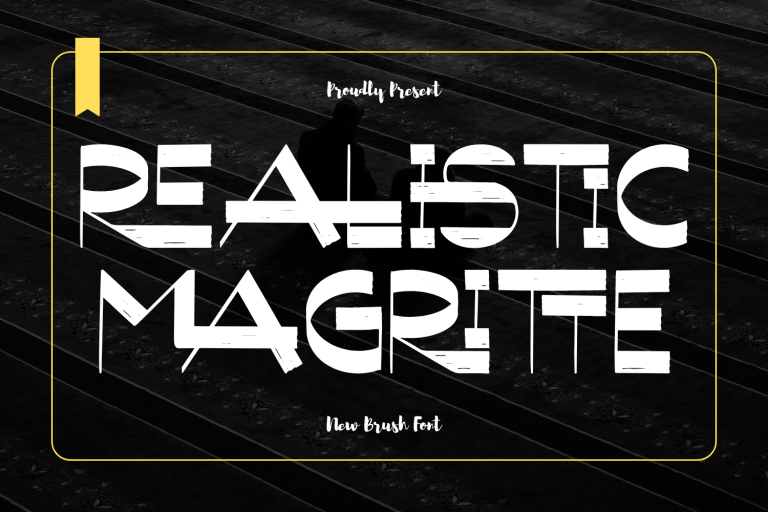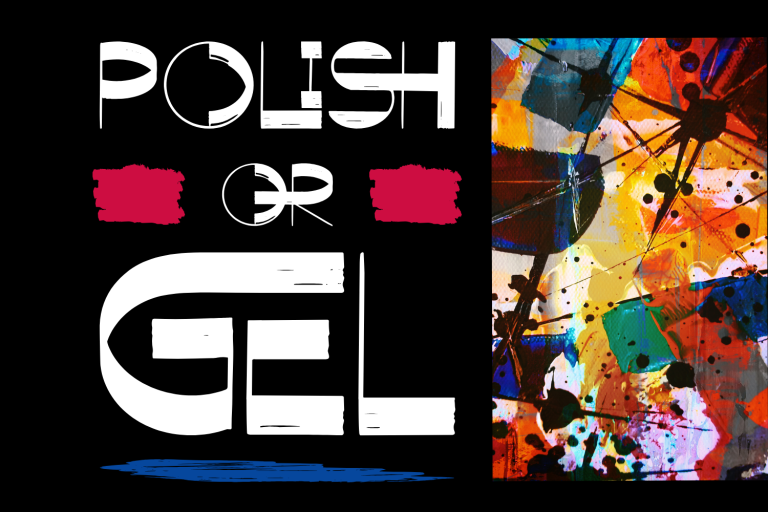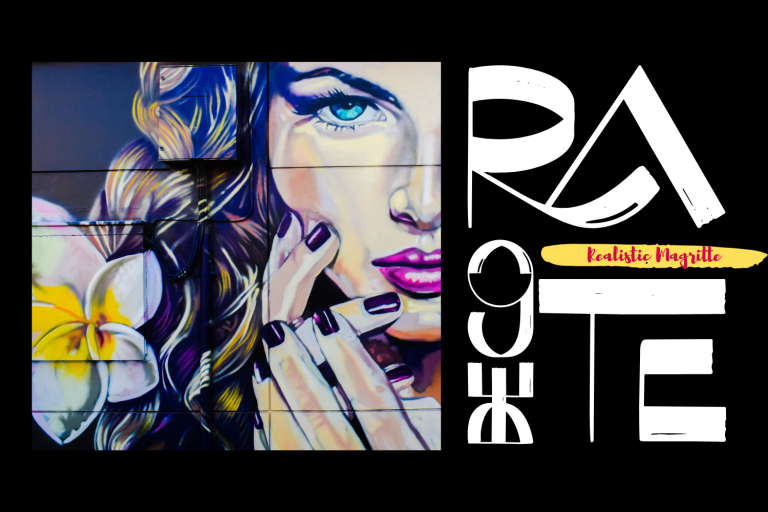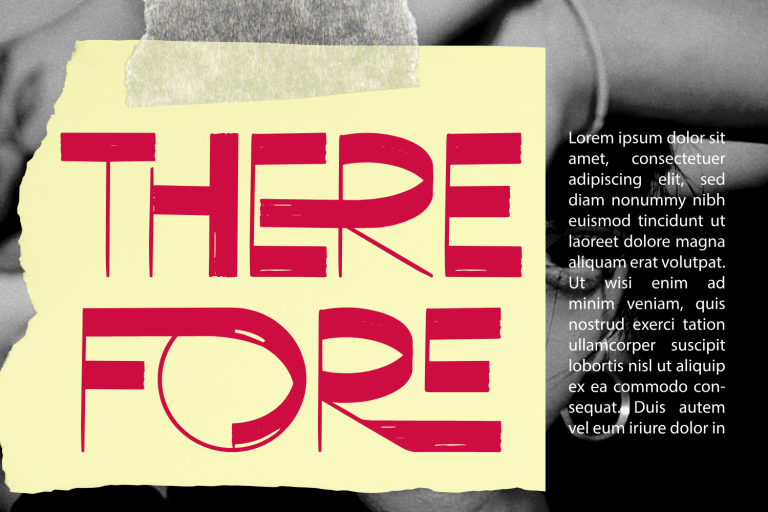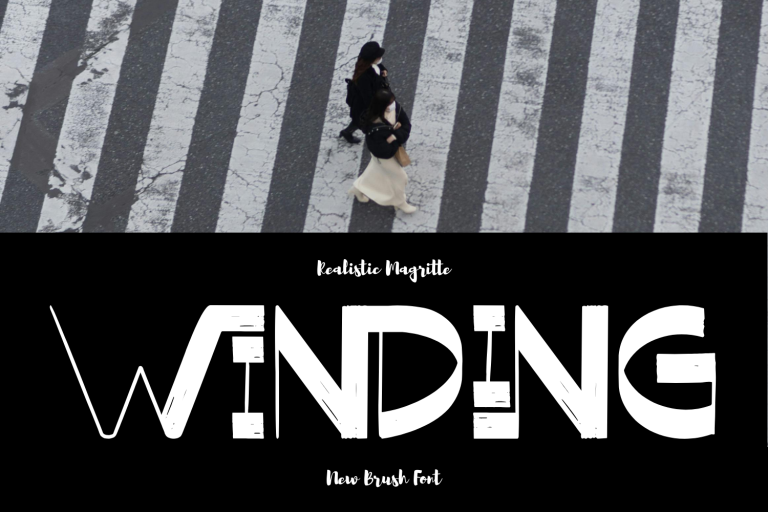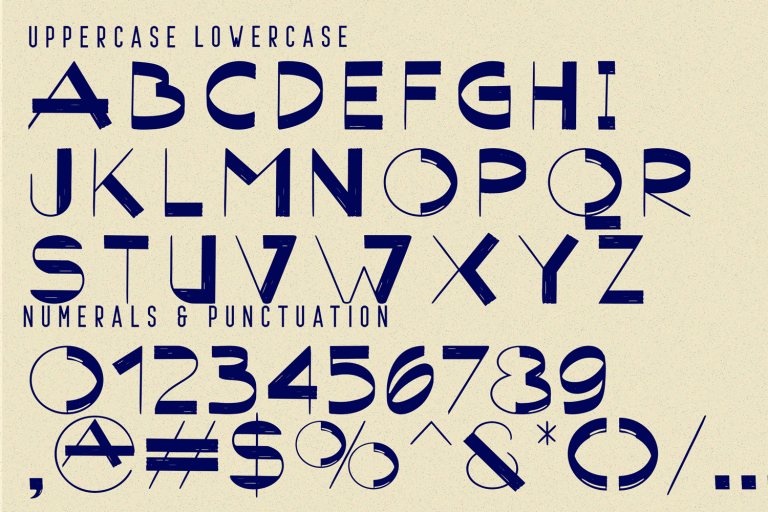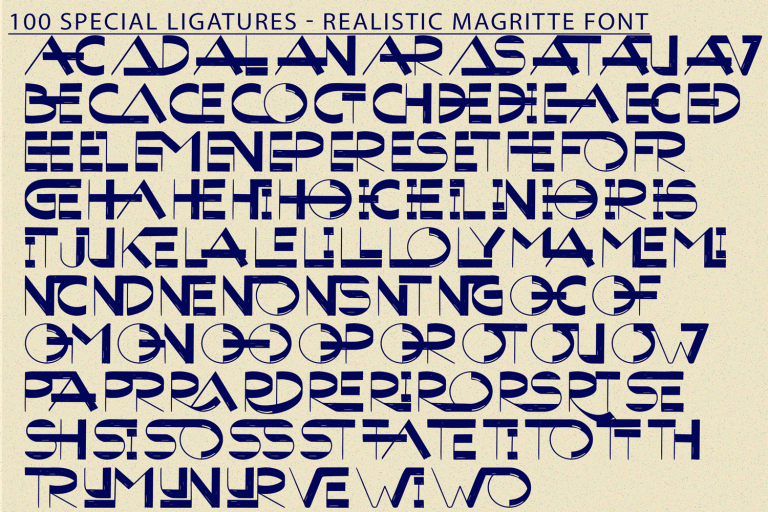
Realistic Magritte Brush Font – Distressed Geometric Display Typeface, is a striking geometric display typeface infused with an expressive distressed texture. Its bold, angular letterforms are inspired by modernist geometry, while the rough, hand-crafted grunge details add an organic and rebellious edge. The result is a perfect balance between structure and imperfection — ideal for projects that demand a unique, eye-catching identity. Whether you’re designing a movie poster, an album cover, an urban fashion brand, or experimental artwork, Realistic Magritte brings a raw yet refined aesthetic that stands out in any creative context.
✨ Font Features:
• Uppercase Letters
• 100+ Creative Ligatures
• Multilingual Support with Accented Characters
• Distressed / Worn Texture for an Authentic Handmade Look
• Strong Geometric Shapes with Bold Visual Impact
✨ About 100 ligatures combined with Stylistic Alternates Font:
AC AD AL AN AR AS AT AU AV BE CA CE CH CO CT DE DI EA EC ED EE EL EM EN EP ER ES ET FE FO FR GE HA HE HI HO IE IC IL IN IO IR IS IT JU KE LA LE LI LL LO LY MA ME MI NC ND NE NG NO NT NS OC OF OM ON OO OP OR OT OU OW PA PR RA RD RE RI RO RS RT SE SH SI SO SS ST TA TE TH TI TO TR TT UM UN UR VE WI WO
Realistic Magritte Brush Font